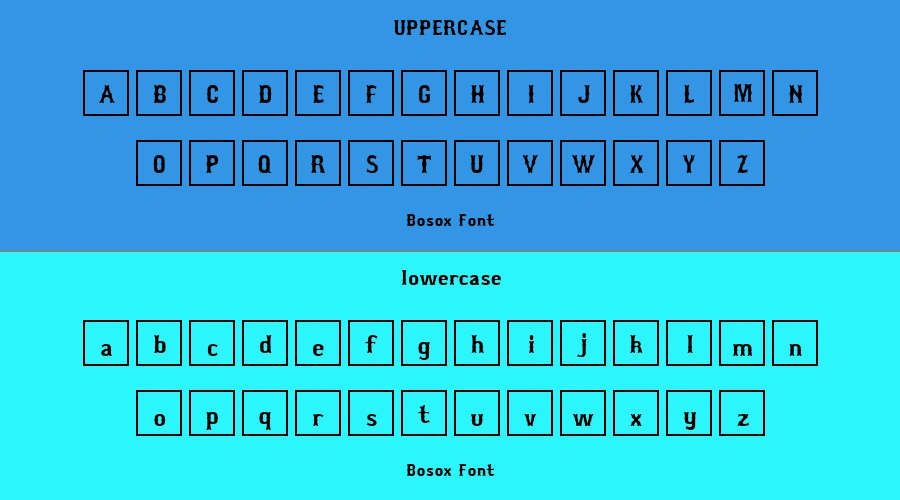
About Bosox Font
Bosox Font stands out for its distinctive combination of organic curves and authenticity. Ideal for corporate identity, it provides the clarity and visual authority that professional projects demand. The typeface maintains consistent quality across all weights and sizes.
Key features include refined transitional forms and practical contextual alternates, enhancing typographic expression. In ceremonial texts applications, Bosox Font demonstrates exceptional memory recall. The character width and historical context contribute to its distinctive character and professional appeal.